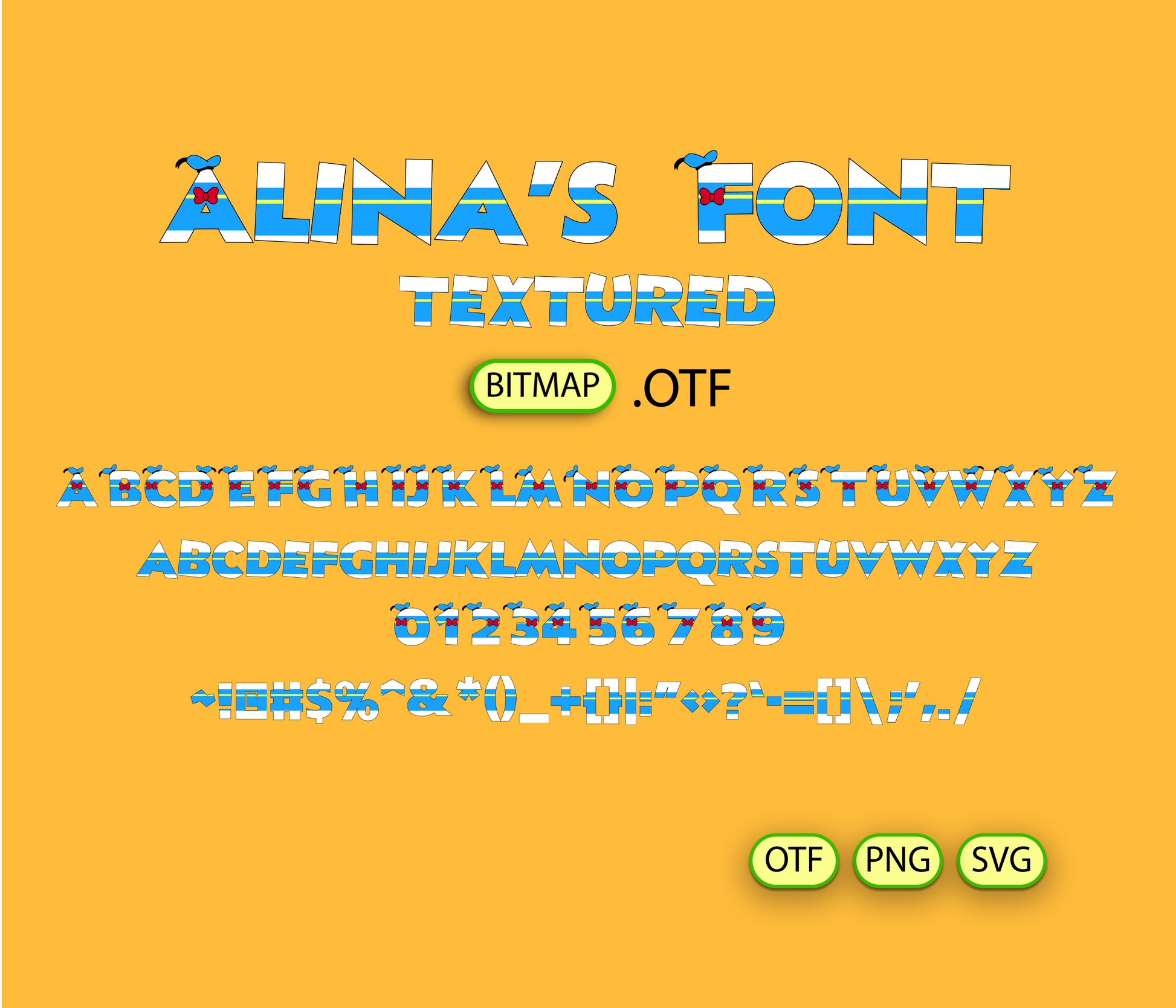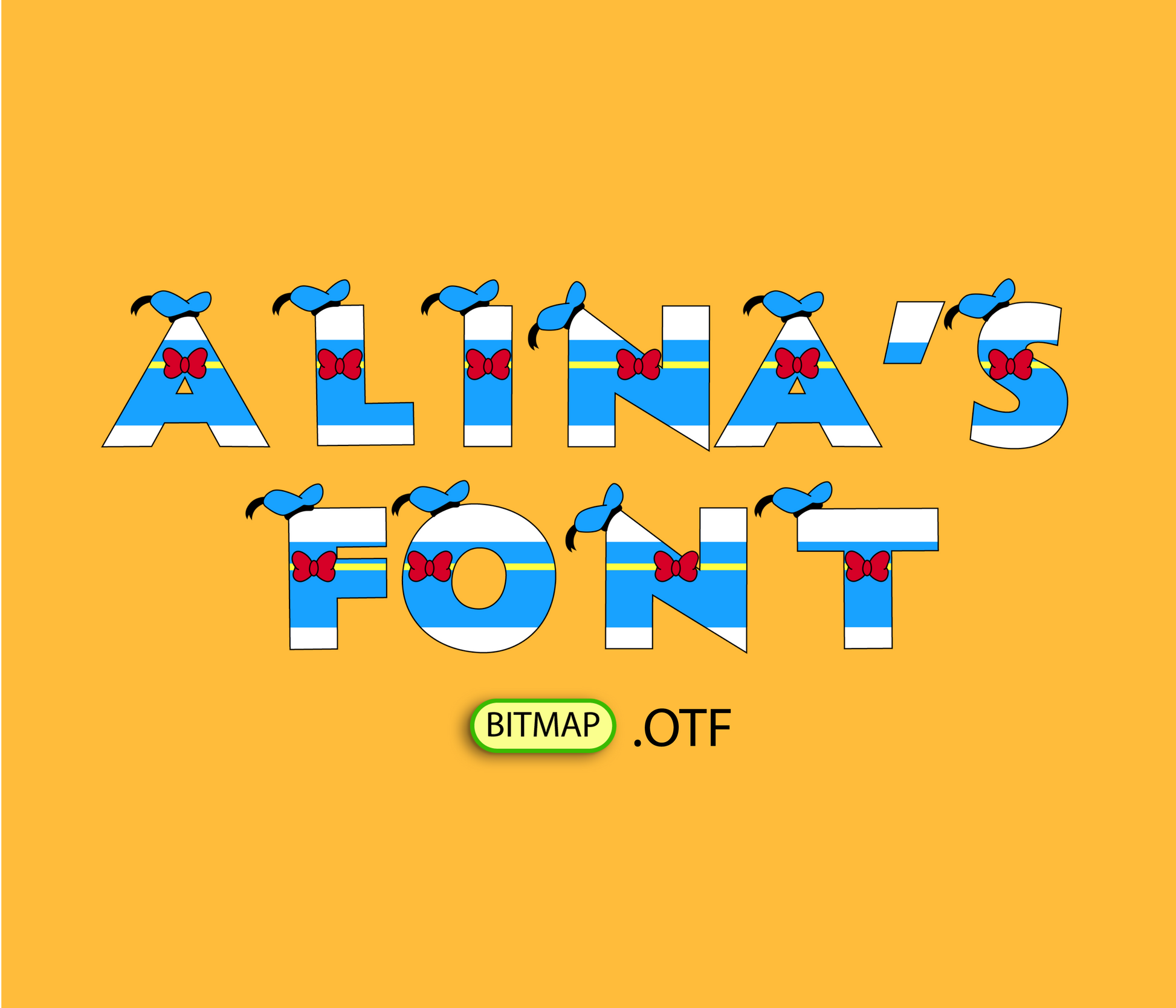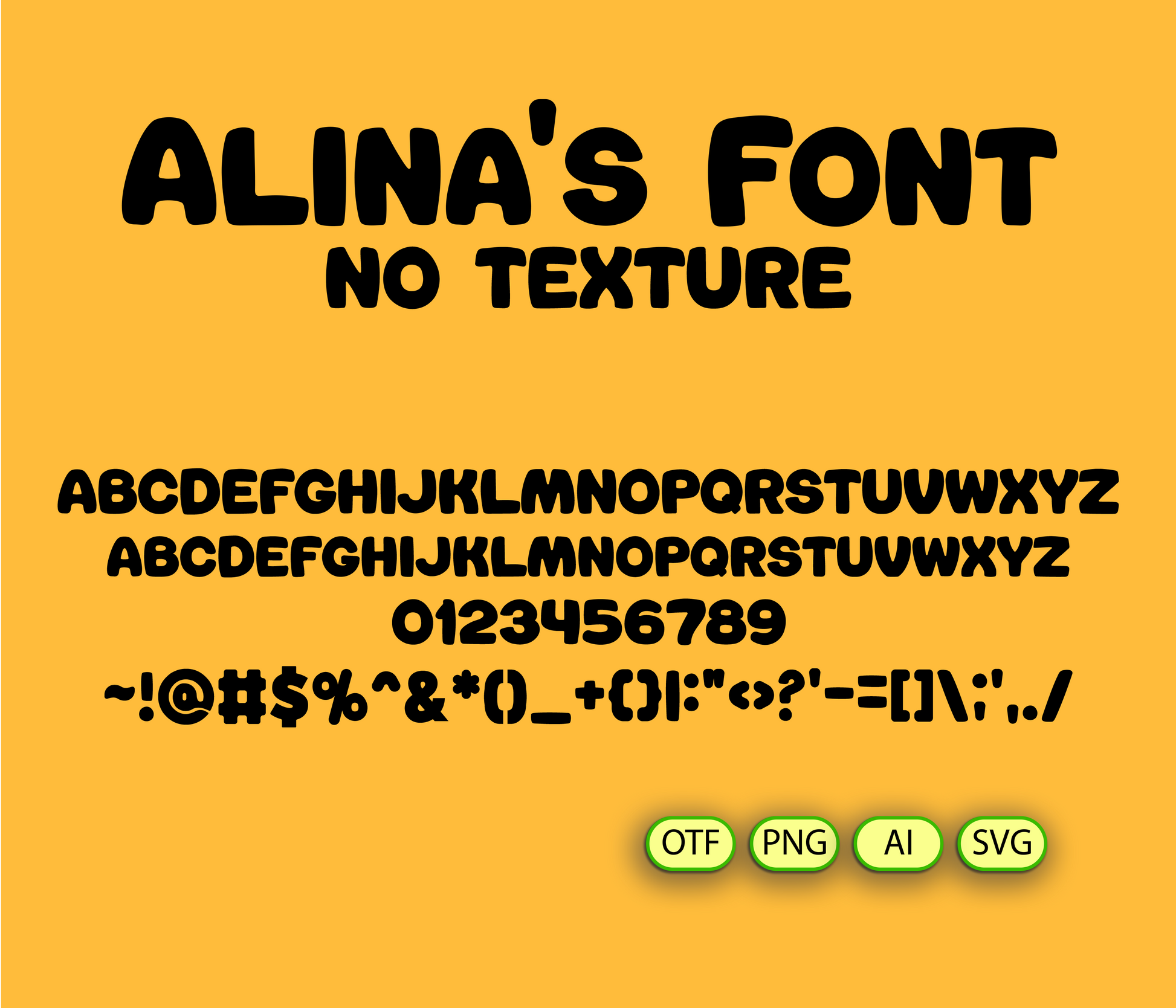
Donald Sailor Pattern Font
Donald Font Textured Sailor Adventure Style
Step into the adventurous world of nautical mishaps and comedic adventures with our Donald font, capturing the essence of sailor tales and spirited escapades. Perfect for maritime events, comedy content creators, adventure enthusiasts, and creative professionals, this font brings the bold, energetic spirit of seafaring adventures to your projects. Create entertaining invitations, nautical-themed merchandise, or digital content with the dynamic, playful energy of maritime comedy.
Our Donald font features bold, angular strokes and expressive characters reflecting the spirited yet classic aesthetic of sailor adventure scenarios. Ideal for:
- Maritime Events: Create attention-grabbing invites, posters, and banners for boat parties, sailor-themed experiences, and nautical gatherings
- Comedy Design: Perfect for book covers, entertainment promotions, and adventure-themed party accessories that capture comedic energy
- Digital Media: Enhance websites, blogs, and social media with dynamic headers and graphics that express adventure and maritime spirit
- Entertainment Content: Add authentic character to comic materials, adventure designs, and promotional materials for seafaring events
- Personal Projects: Bring nautical charm to scrapbooking, DIY crafts, and home decor inspired by the aesthetics of sailor adventures
Our Donald font includes textured and non-textured variants, ensuring compatibility with all software, including Canva. This feature allows easy incorporation into designs for users of all skill levels.
Many seek an online font generator to mimic the look of the Donald Font. Steer clear! No generator can match the quality of our font, which comes in two versions: a textured colored font and a simple version, perfect for cutting machines.